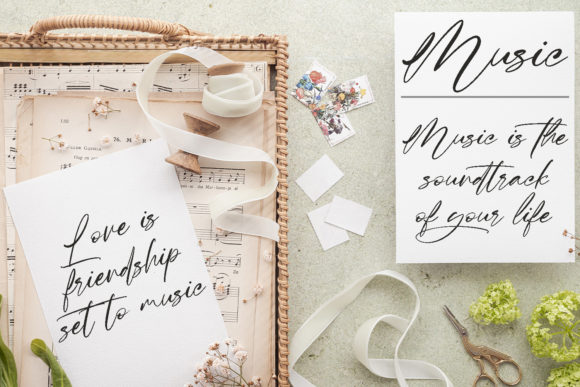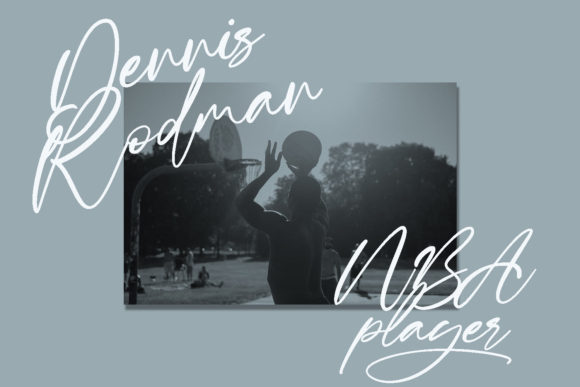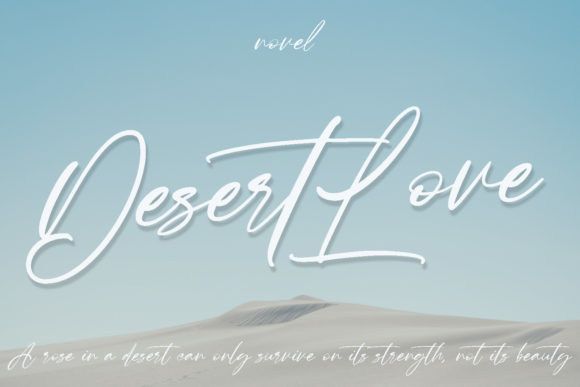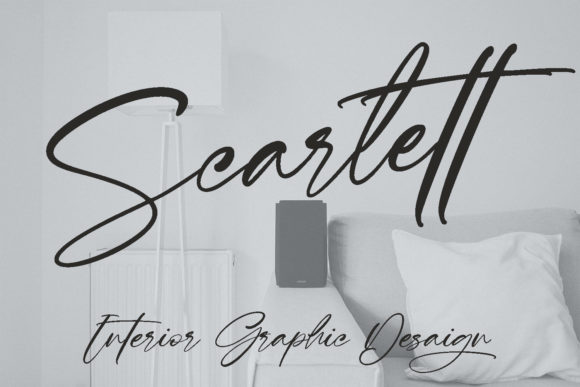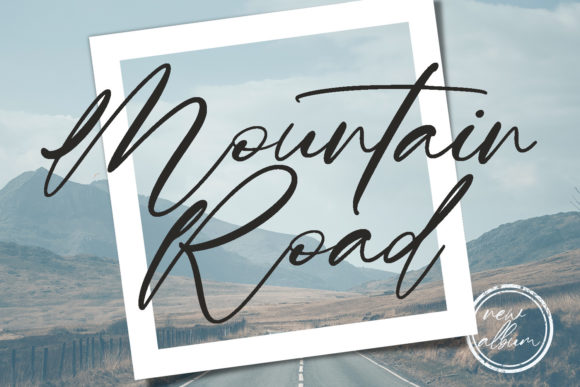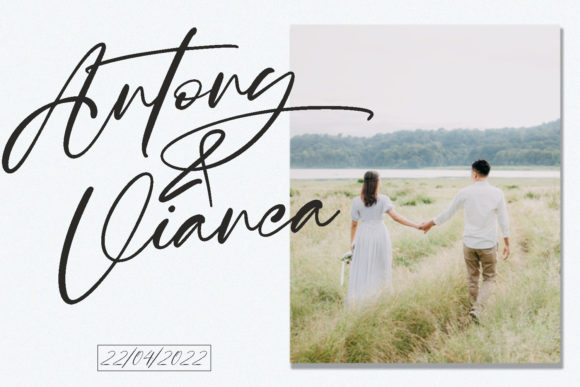
Introduction to Porgetas Font
Have you ever stared at a blank page, waiting for inspiration to strike? As designers, we’ve all been there. The cursor blinks, and our minds go blank. But what if I told you there’s a secret to unlocking your creative potential? Enter Porgetas Font, the ultimate game-changer for your next design project.
This stunning ink-inspired signature script font is designed to take your work to the next level. With its light strokes, fun character, and subtle ligatures, Porgetas Font is the perfect addition to any creative project. Whether you’re working on a logo design, social media graphics, movie titles, or book covers, this versatile font is sure to elevate your work.
Key Features of Porgetas Font
- Transparent background allows for effortless layering and customization in your design.
- High-resolution design ensures crisp and clear text, even at larger font sizes.
- Unique characteristics, such as its elegant and modern design, set it apart from other fonts in its class.
Honest Review: Porgetas Font
I recently stumbled upon the Porgetas Font and was excited to test it out for my next creative project. As a designer, I’m always on the lookout for high-quality design resources to elevate my work.
Here are some things that worked well for me:
- ✨ The font is highly customizable, allowing me to easily adjust the size, color, and style to suit my needs.
- ✨ The transparent background option made it easy to layer my text over images without any visual clutter.
- ⚠️ The font is not suitable for large-scale printing or professional publishing, as it may not hold up well under high-resolution scrutiny.
- ⚠️ Some users may find the font’s unique style to be too quirky or overused, which could limit its versatility in certain design contexts.
Overall, I’m impressed with the Porgetas Font’s potential and would definitely consider using it for smaller-scale creative projects or personal design endeavors. With a little creative experimentation, I think this font could be a great addition to any designer’s toolkit.
Getting the Most Out of Porgetas Font
For optimal results, use Porgetas Font in conjunction with other design resources, such as high-quality images and graphics. Experiment with different font sizes, colors, and styles to create unique and creative designs. The font’s transparent background feature allows for endless possibilities and flexibility.
Porgetas Font is ideal for various creative projects, including graphic design, digital art, and print materials. Its high-quality features and transparent background make it a popular choice for designers and artists. Use Porgetas Font to create stunning designs, graphics, and presentations that stand out from the crowd.